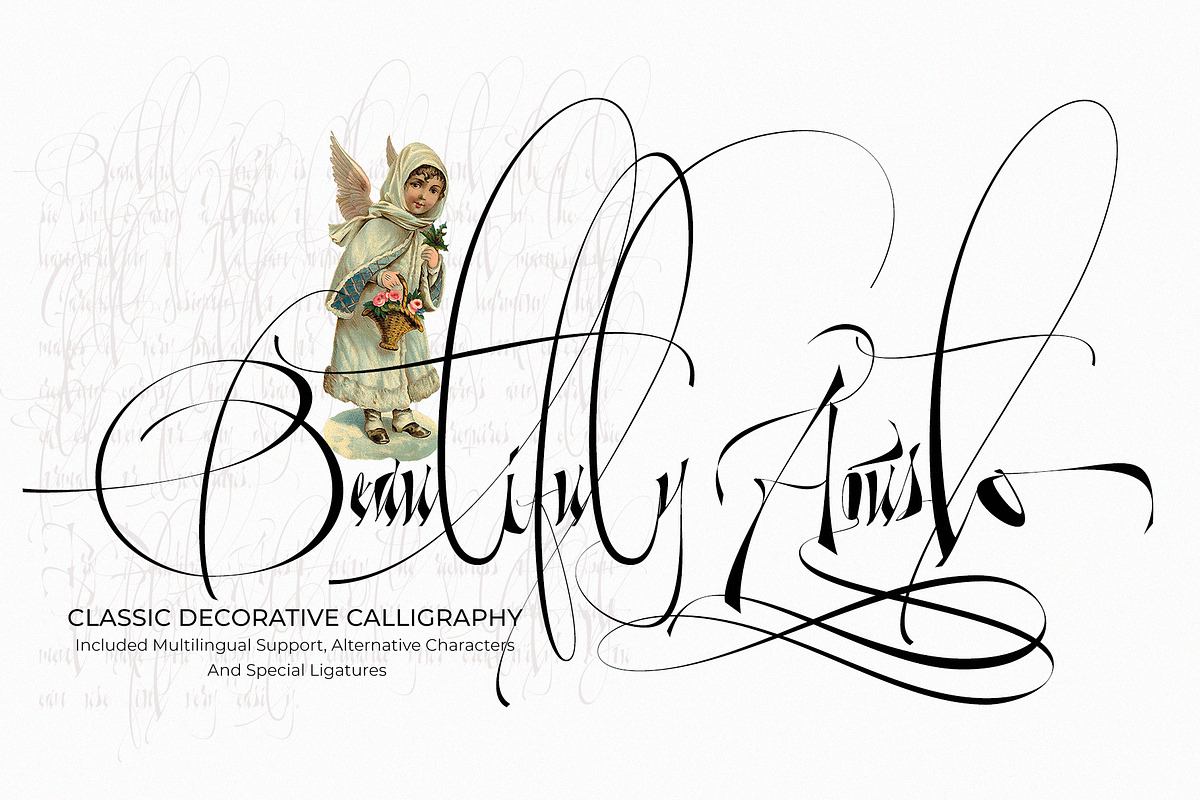
The Beautifuly Agusto Font Free Download is an elegant and expressive script typeface designed to add a luxurious, handwritten feel to your projects. Perfect for wedding invitations, branding, social media graphics, product packaging, and fashion-themed designs, this font blends sophistication with natural flow.
Featuring graceful curves and delicate strokes, Beautifuly Agusto brings a romantic and stylish touch to any layout. It includes a complete set of uppercase and lowercase letters, ligatures, alternates, punctuation, and multilingual support—making it highly versatile for both digital and print use.